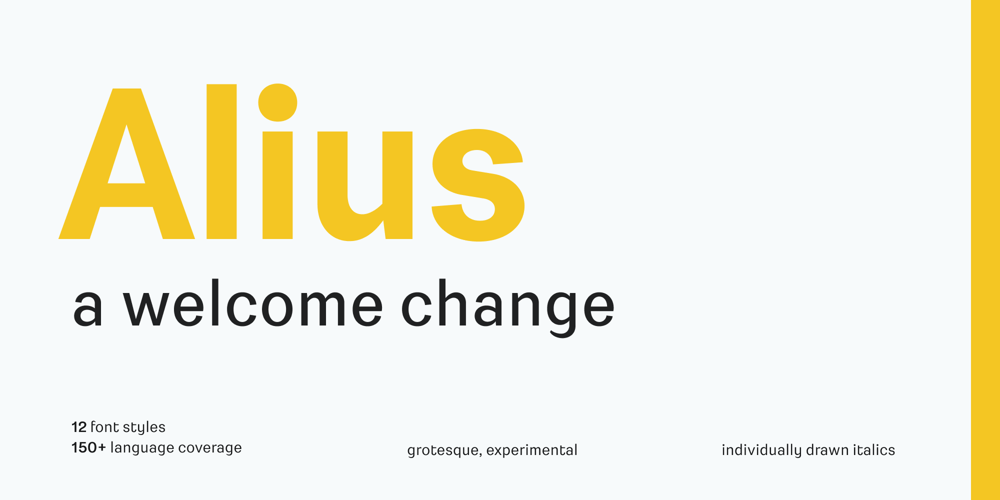
Alius Font Family was designed by Lucas Tillian and published by Lucas Tillian. Alius contains 12 styles and family package options. Alius is something else. Experimental shapes combined with traditional ones result in an extremely legible typeface that—because of its economically spaced characters—works extraordinarily well for copy texts as well as big striking headings. Alius has been created with great attention to detail which is particularly noticeable in smaller sizes where proportions and shapes remain intact. The Typeface includes stylistic alternates that provide the designer with endless possibilities for combinations and variations. Alius contains PS-Hinting and is therefore as legible on screen as it is on paper.The typeface comes with powerful OpenType features that will satisfy even the most demanding of designers. With more than 680 Glyphs and a coverage of over 130 languages, Alius is as versatile as it is beautiful.The development of the typeface started in the summer and concluded in the fall of 2021.